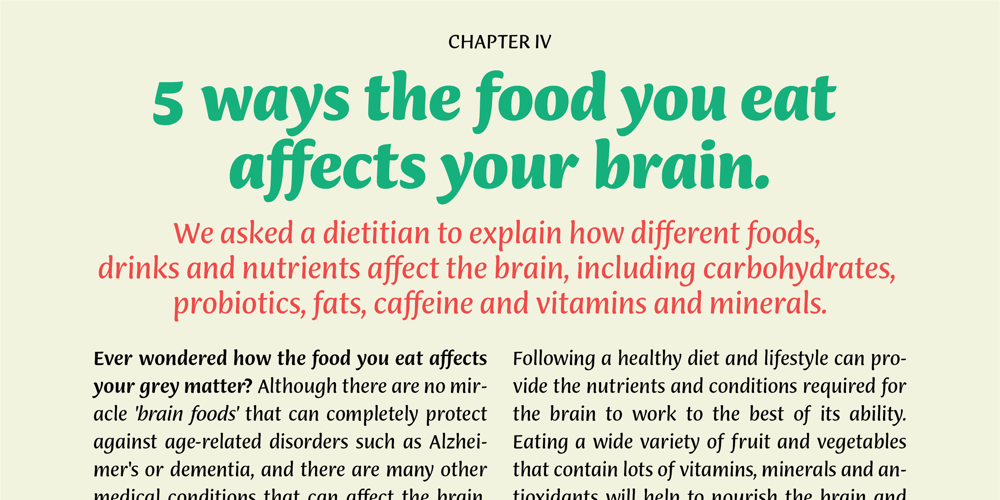
Ciabatta Font Family was designed by Xavier Dupré and published by Sudtipos. Ciabatta contains 10 styles and family package options. Ciabatta is a luscious font made especially for packaging. Thanks to 5 weights, it can be used for all eventualities; powerful in headlines or as lettering, yet very legible in small texts. Its shapes are slightly narrow and based on classical italics but Ciabatta includes alternates with a double-storey ‘a’ and ‘g’ which offer a more formal appearance upright.